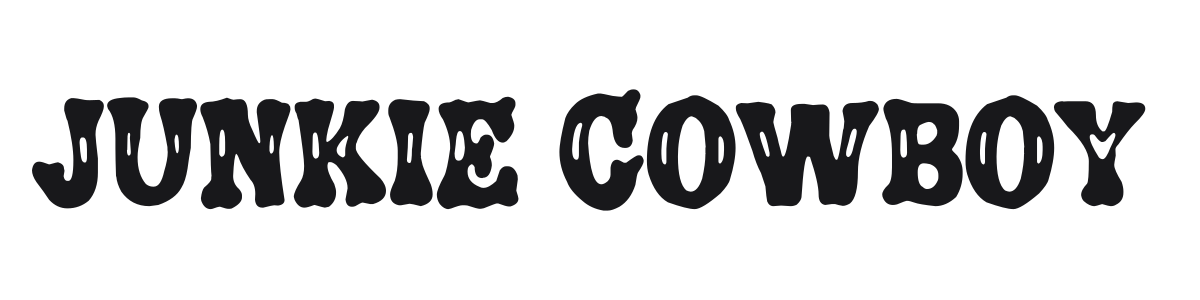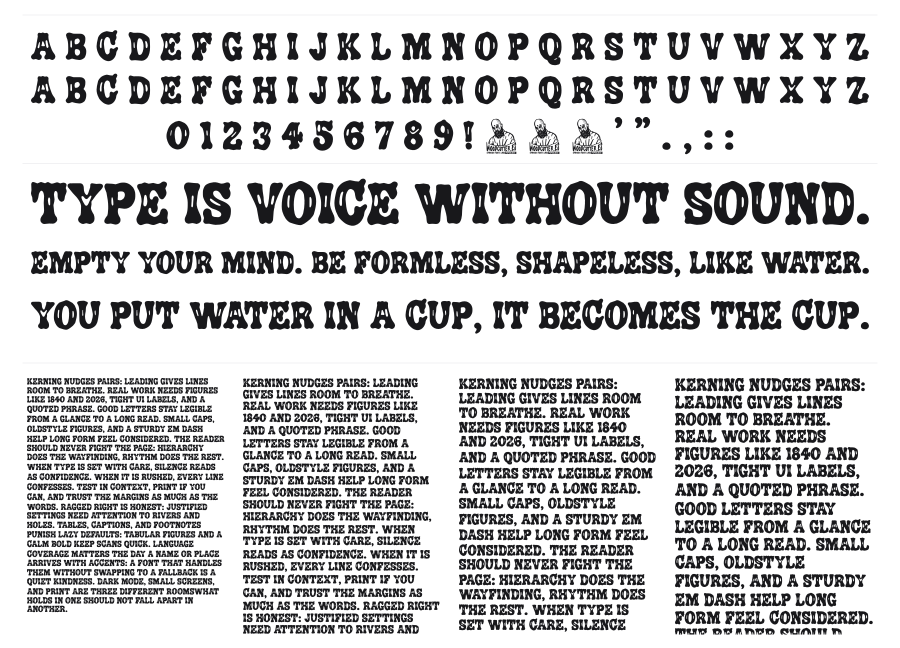
Junkie Cowboy
Junkie Cowboy is a heavy display serif by Woodcutter that fuses wild-west lettering with 1970s psychedelic poster energy. The strokes swell and bulge with a hand-carved, almost bloated quality, giving each character a larger-than-life presence. It hits hard at headline sizes and brings instant retro attitude to posters, album art, and branding.